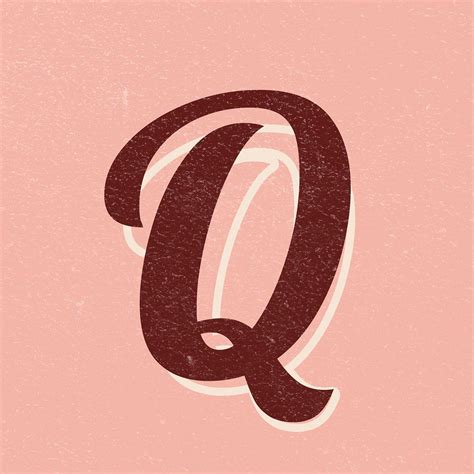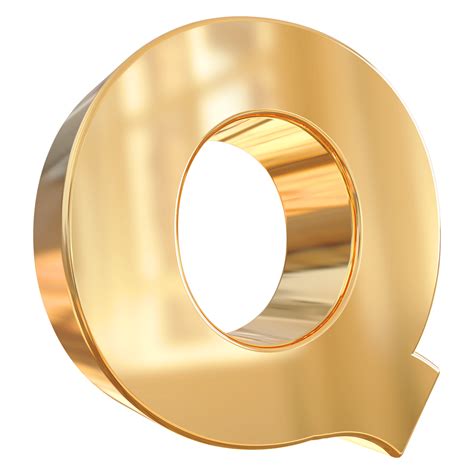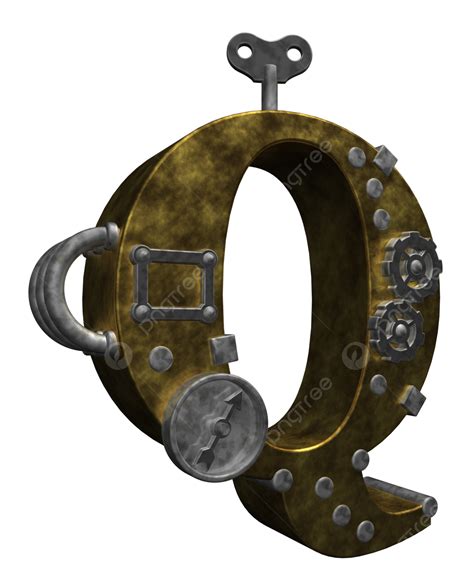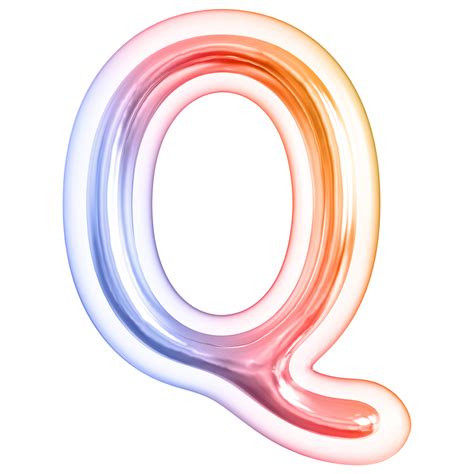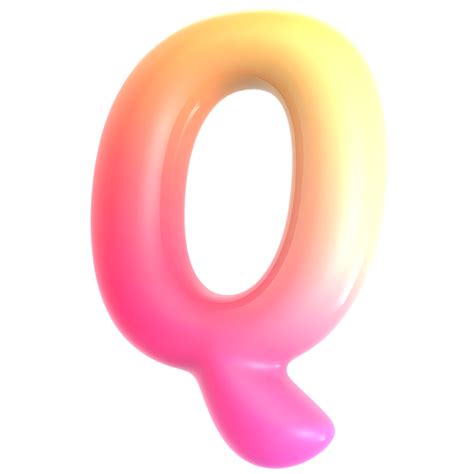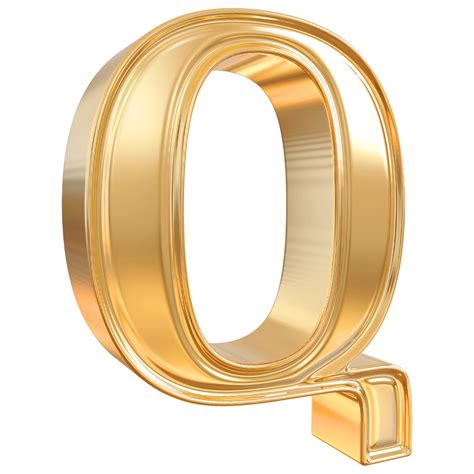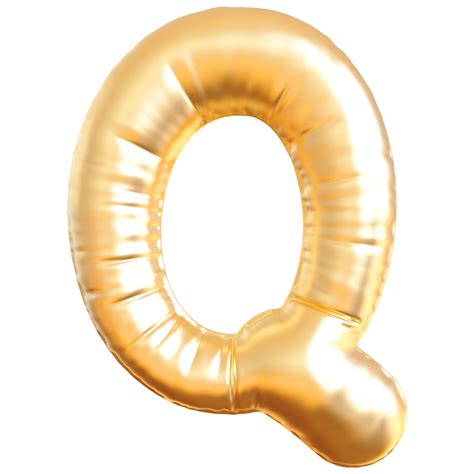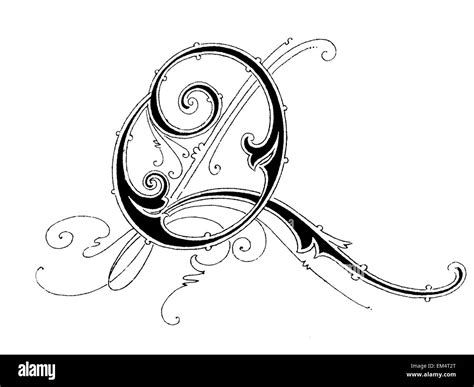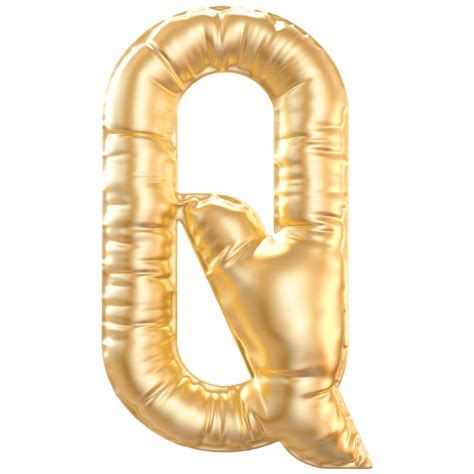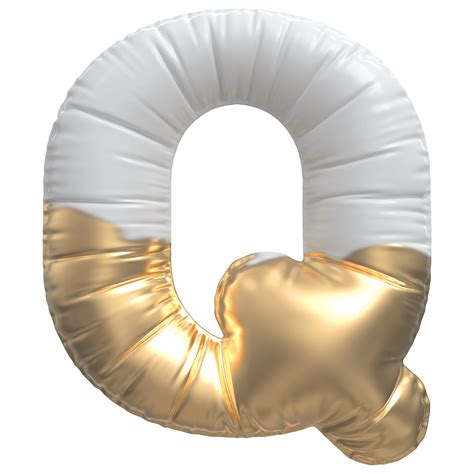
Typography is an crucial factor of optical communication, acting as the mum vocalism behind every brand, book cover, and digital interface. When designers search for specific character traits, they often center on singular glyph, such as the subtle tail of the letter Q. Finding the perfective Letter Q baptistery involves examine how this particular fiber interacts with others, poise its decorative flair with functional legibility. Whether you are aiming for a minimalist esthetic or a bold, historic revival, the way a typeface interprets the Q can significantly influence the overall quality of your projection.
The Evolution and Anatomy of the Letter Q
The letter Q is historically one of the most interesting characters in the Latin abc's. Its evolution from the Phoenician 'qoph' to the mod sort we know today has understand respective iterations of the descending stroke. In typography, this stroke - known as the tail or terminal - is where designers ofttimes verbalise their creative exemption.
Variations in Tail Design
- The Straight Tail: Often understand in modernistic sans-serifs, this cater a clean, geometrical look.
- The Flowing Cursive Tail: Common in script fonts, these tails add elegance and sumptuosity.
- The Loop Tail: Oft base in traditional serifs, proffer a classic, scholarly appearance.
- The Minimalist Dot: Seen in experimental show fonts, where the tail is reduced to a bare geometrical accent.
Selecting Fonts Based on Design Intent
When selecting a fount for a project, the Q character often serves as a litmus trial for the font's personality. If you are designing for a luxury brand, you desire a font where the Q look designed and perchance a bit stylized. If you are working on a technical manual, you require a font where the Q remain extremely legible at small size, ensuring the tail does not obscure into the smother textbook.
| Font Style | Better Q Characteristic | Ideal Use Case |
| Serif | Traditional teardrop tail | Editorial print, book blueprint |
| Sans-Serif | Centered, straight cva | Web interfaces, wandering apps |
| Script | Exaggerated, looping stroke | Espouse invitations, logos |
| Show | Observational or abstractionist | Poster design, branding headline |
💡 Tone: Always screen your chosen face by typecast out lyric that moderate the letter Q in various contexts, such as "Quality", "Unique", and "Sequence", to see how the spacing (kerning) give up.
Best Practices for Typography Layout
Beyond the individual glyphs, the effectiveness of Letter Q fonts depends on how they live within the whitespace of your layout. Proper kerning is vital, especially since the Q oft has a large quantity of negative space below its midline. Ensuring that the tail does not clash with descending letters in the line below is a stylemark of professional typesetting.
Hierarchy and Readability
In large-scale designs, like billboards or landing page hero sections, a stylized Q can act as a focal point. Use these unique glyphs meagerly to make visual interest without overwhelming the reader. When work with body text, joystick to case where the Q tail is pernicious and ordered with the residuum of the abcs to sustain a politic reading rhythm.
Surmount the use of typography in your originative employment require a deep understanding of how case-by-case characters function within a encompassing system. By cautiously take how the missive Q is represented, you can set the tone for your entire marque identity or editorial labor. Focussing on the relationship between the tail pattern and the overall legibility of the typeface to ensure that your message is both beautiful and clear. Selecting the right case promote your design, let the unique construction of letters to leave a lasting notion on your hearing.